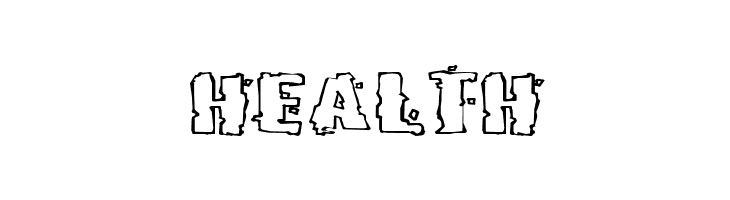
( Fonts by Dieter Schumacher )
A modern, geometric font with a sleek and minimalist design.
( Fonts by DeNada Industries - Mike Allard )
A flowing, elegant cursive font with ornate uppercase and smooth lowercase letters.
( Fonts by Scott Dieznyik - Kejak (formerly Cheops) )
A bold, distressed font with a dynamic, molten appearance.
A bold, angular font with a dynamic, futuristic style.
( Fonts by Digital Graphics Labs - www.digitalgraphiclabs.com )
An elegant, cursive font with intricate swashes and a refined, artistic style.
A decorative font with assorted leaf silhouette glyphs.
( Fonts by Spork Thug Typography - Josh Wilhelm - www.lifewithouttaffy.com/taffy/blog )
A bold, edgy font with sharp angles and a modern feel.
( Fonts by Rich Gast - www.greywolfwebworks.com Commercial Fonts Font )
A bold, angular font with a Gothic-inspired design and high contrast strokes.
A bold, 3D block-style font with a strong visual impact.
( Fonts by Levi Halmos )
A rustic, hand-drawn font with uneven strokes and a whimsical touch.
A futuristic, geometric font with angular shapes and consistent stroke width.
A bold, textured font with a handcrafted, vintage feel.